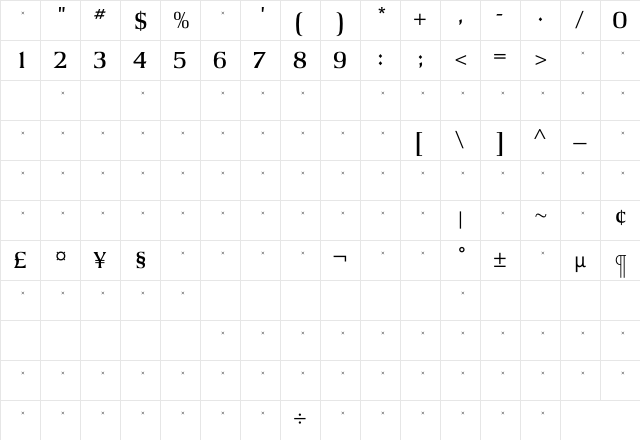
ArgusMediumTab Regular
Design Context for ArgusMediumTab
ArgusMediumTab is a composed and adaptable typeface that performs quietly and consistently across a wide range of design contexts.